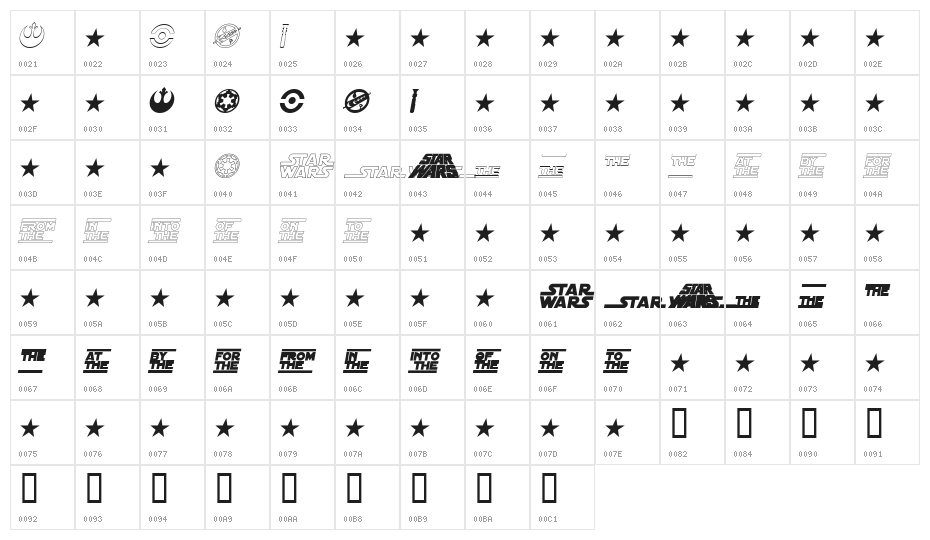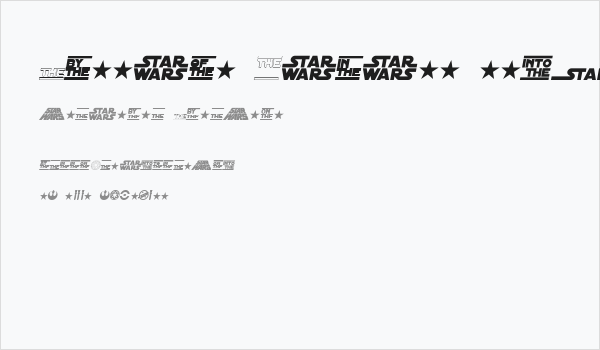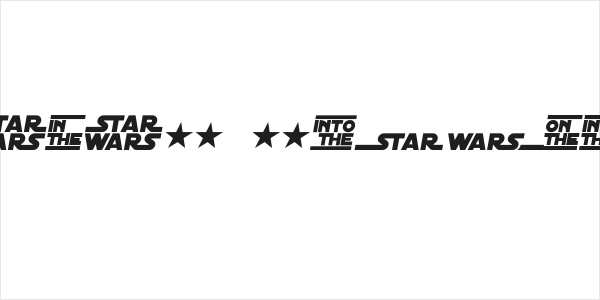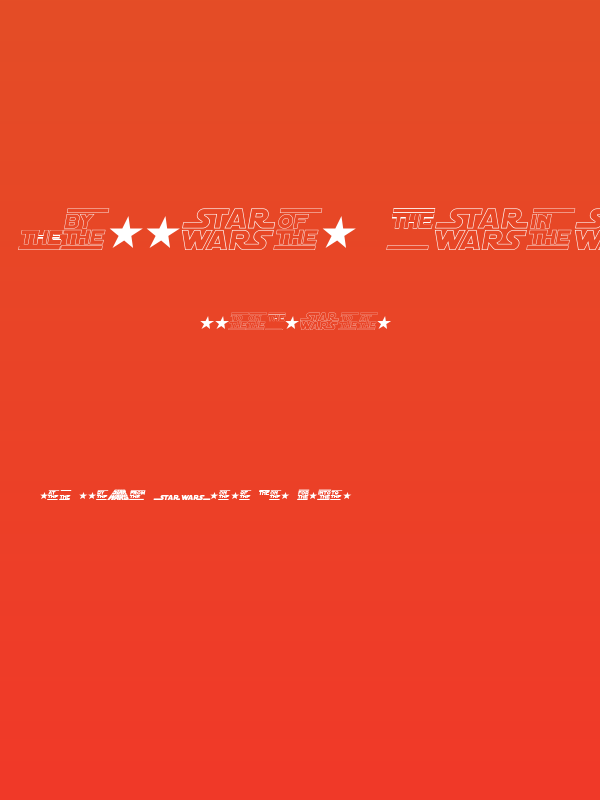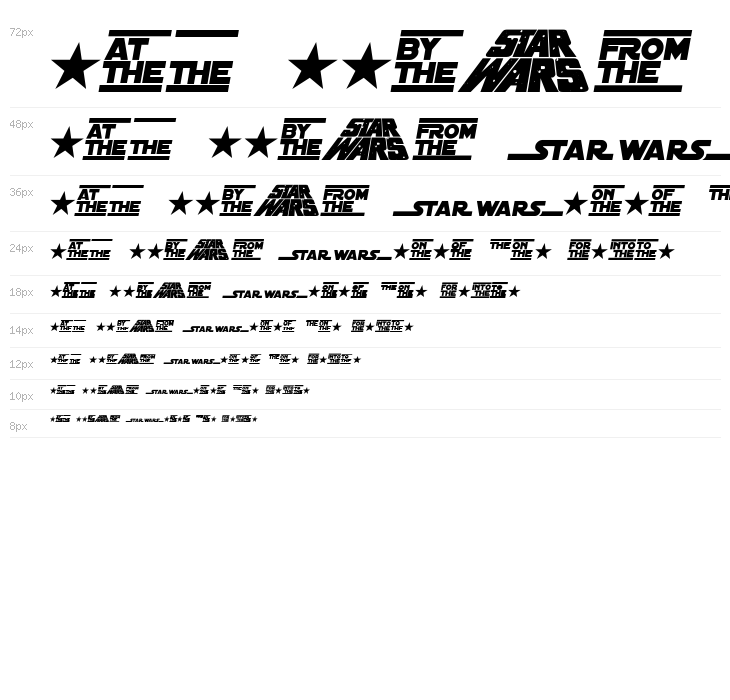
Distant Galaxy Symbols Italic Font
Distant Galaxy Symbols Italic Description
This font features a futuristic and bold design, heavily inspired by science fiction themes. It incorporates sharp angles and clean lines, creating a sense of movement and speed. The characters are wide and spaced evenly, giving a balanced and cohesive look. The font includes a variety of symbols and icons that enhance its thematic appeal, making it ideal for projects that require a touch of the extraordinary. Its italic style adds a dynamic and energetic feel, perfect for capturing attention.
| Proposed Projects | Ideal for movie posters, video game titles, themed events, and merchandise designs. |